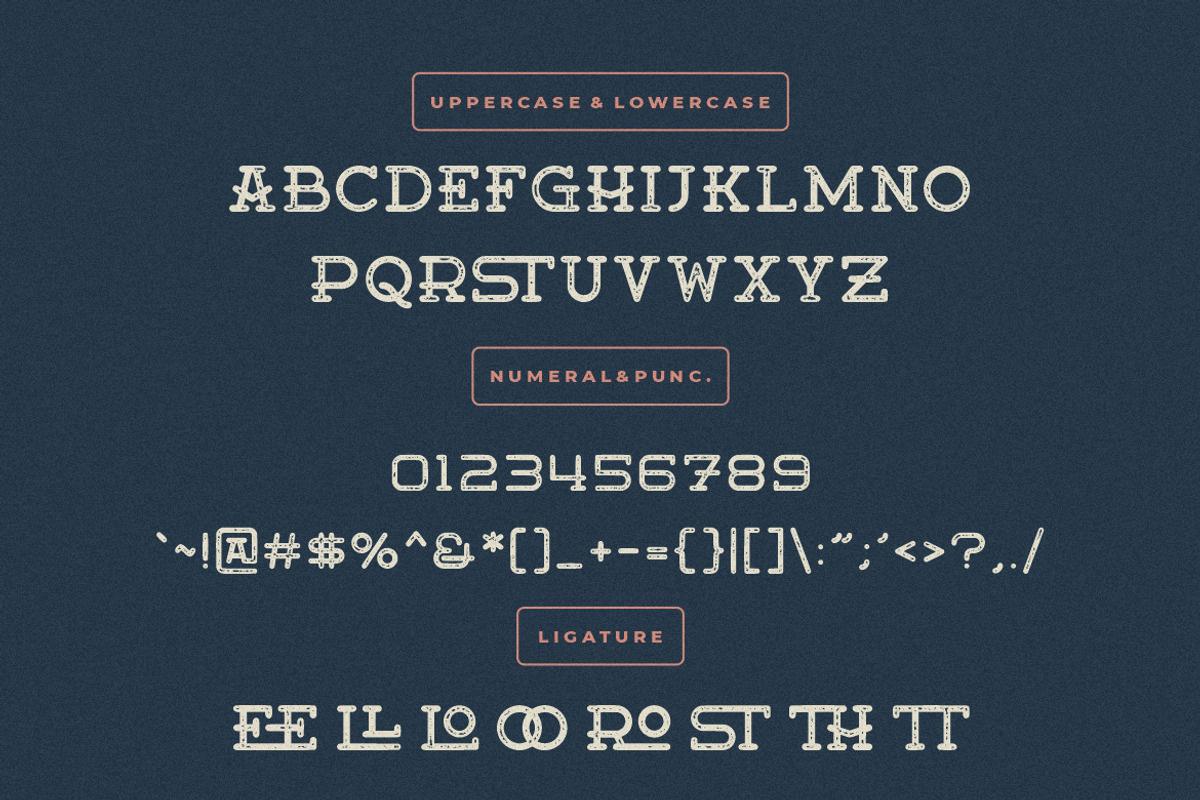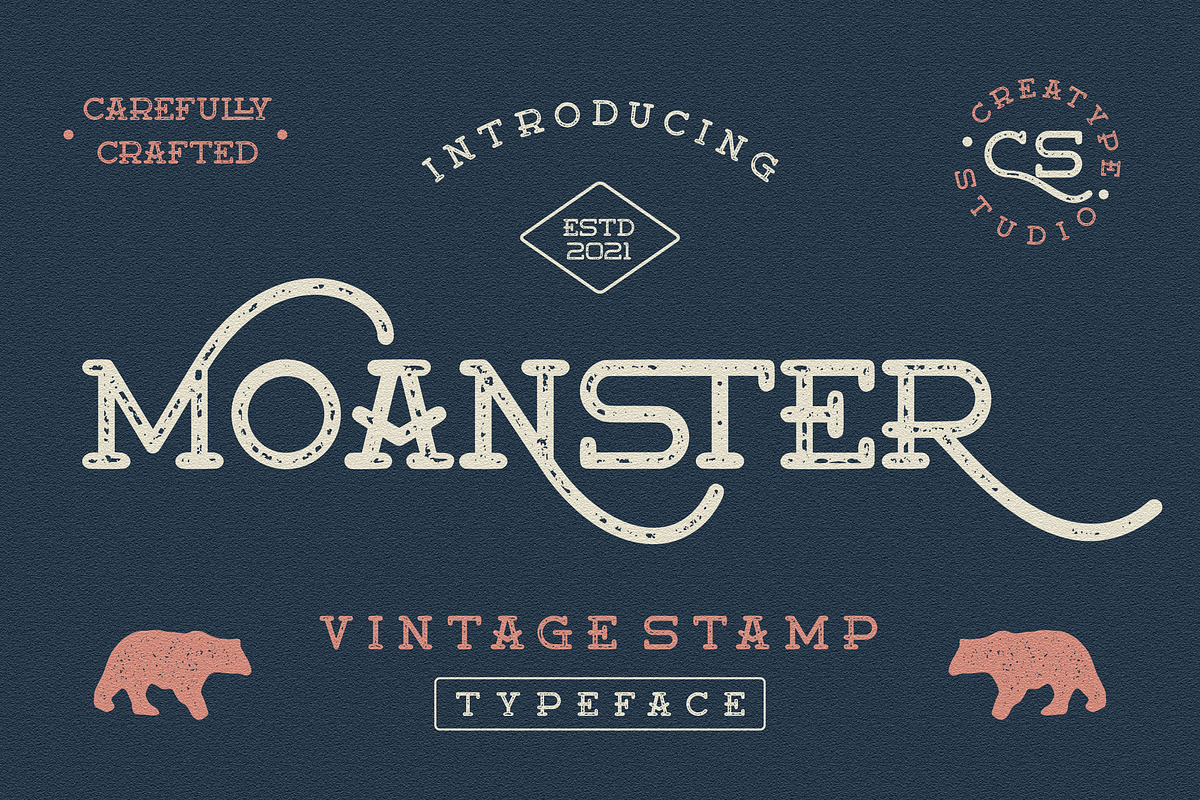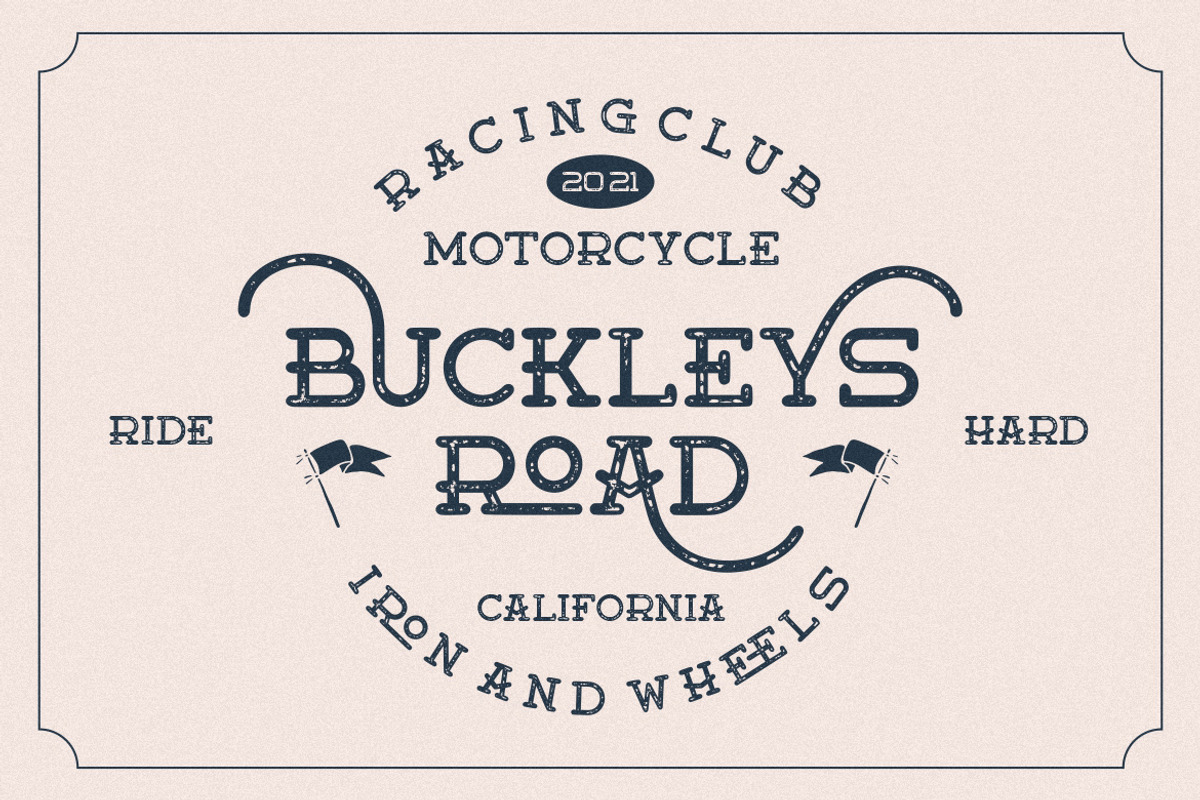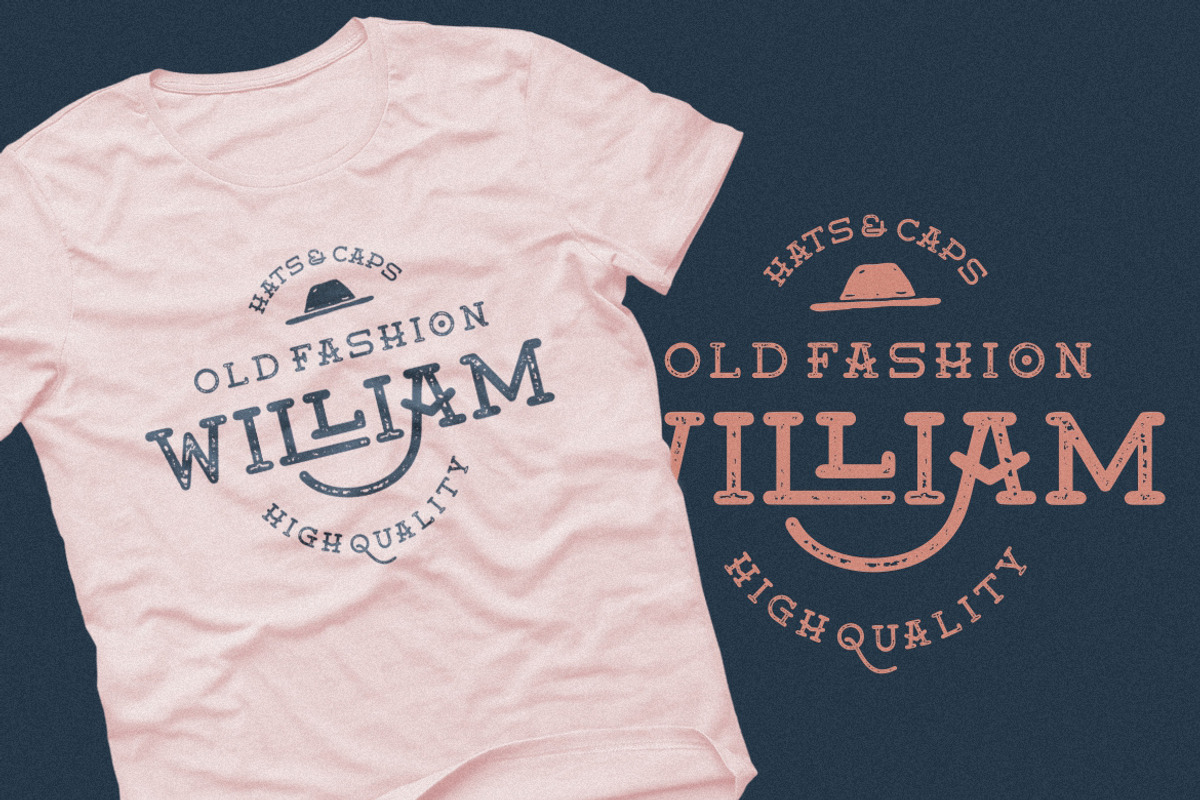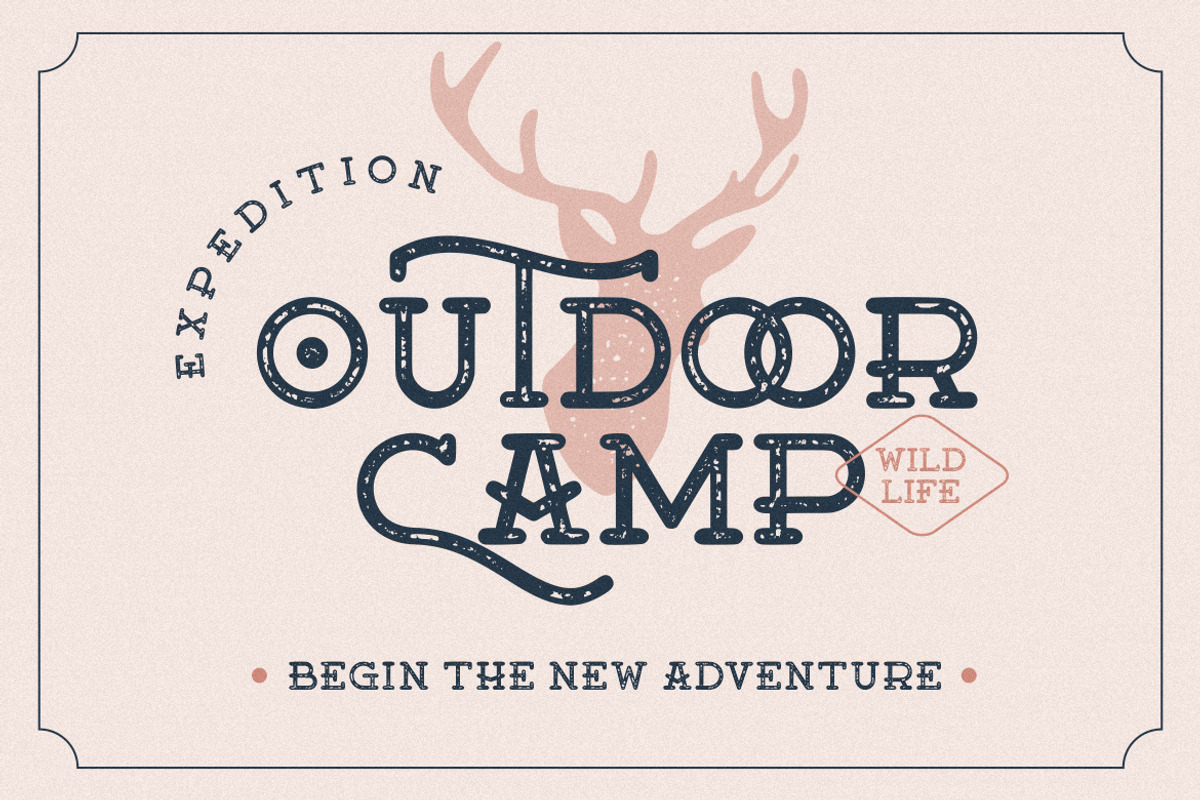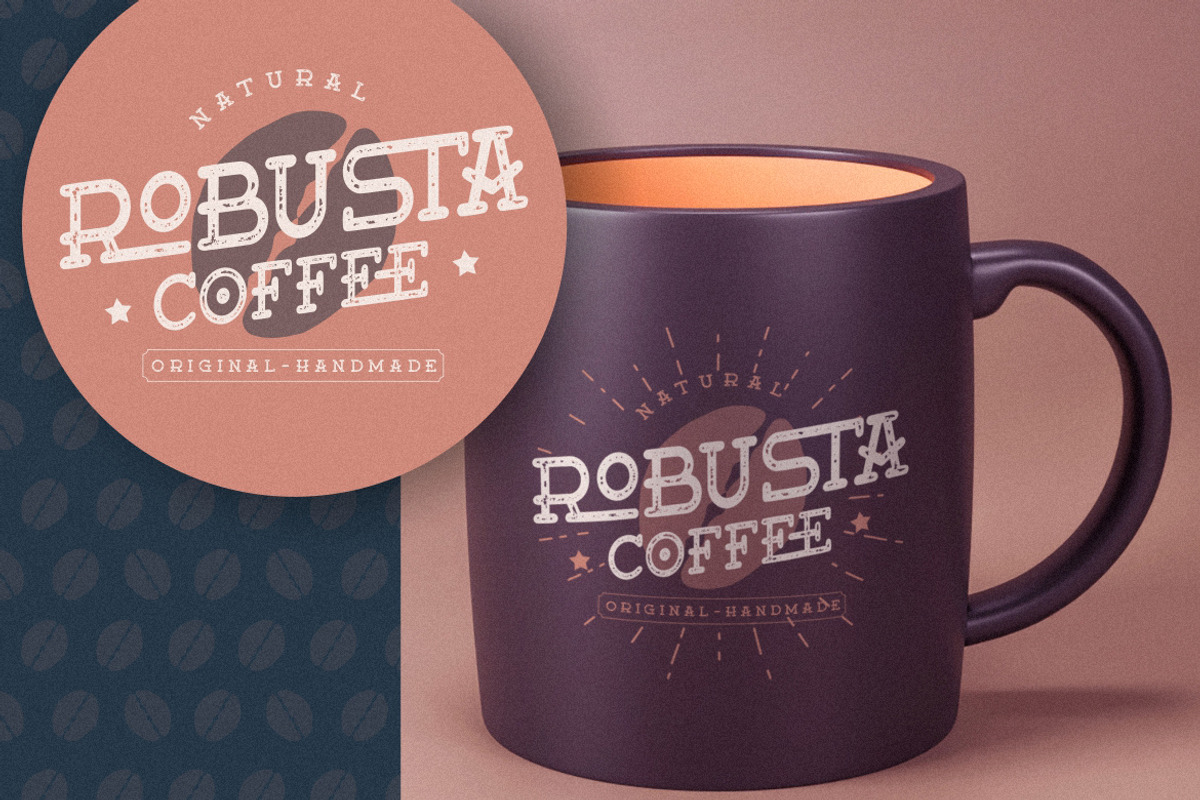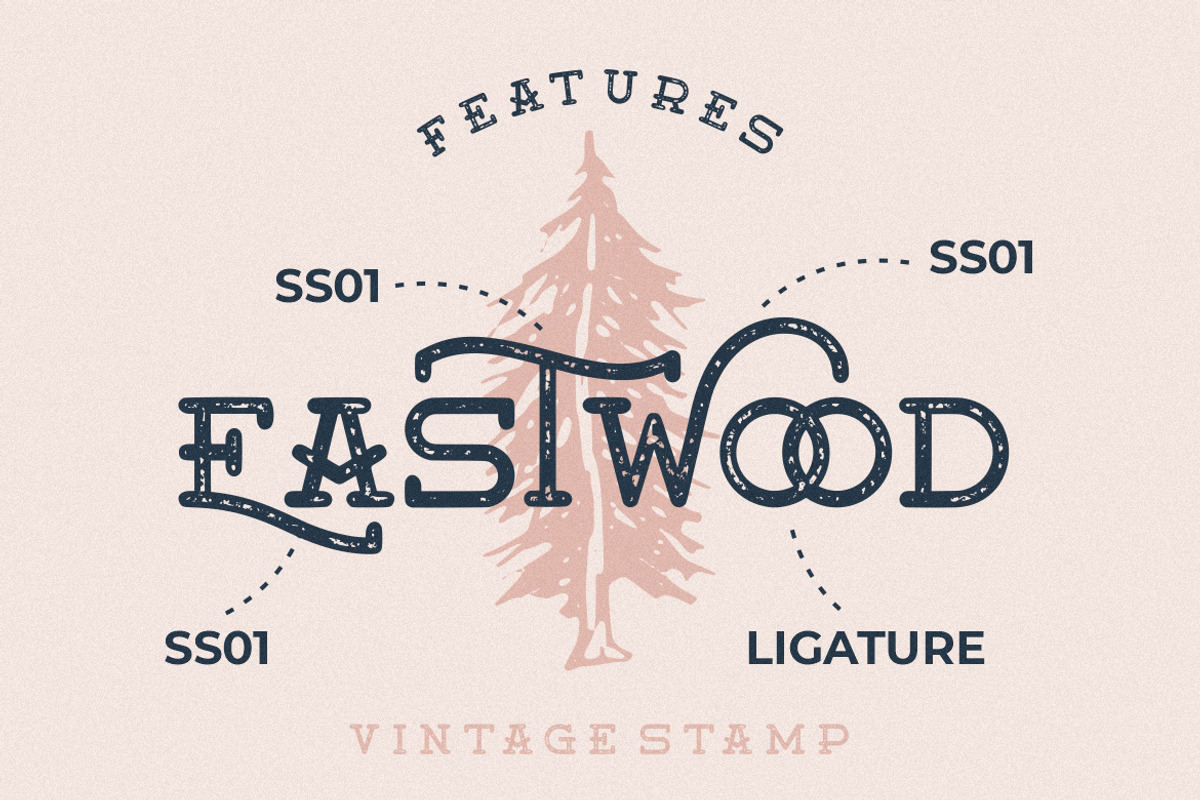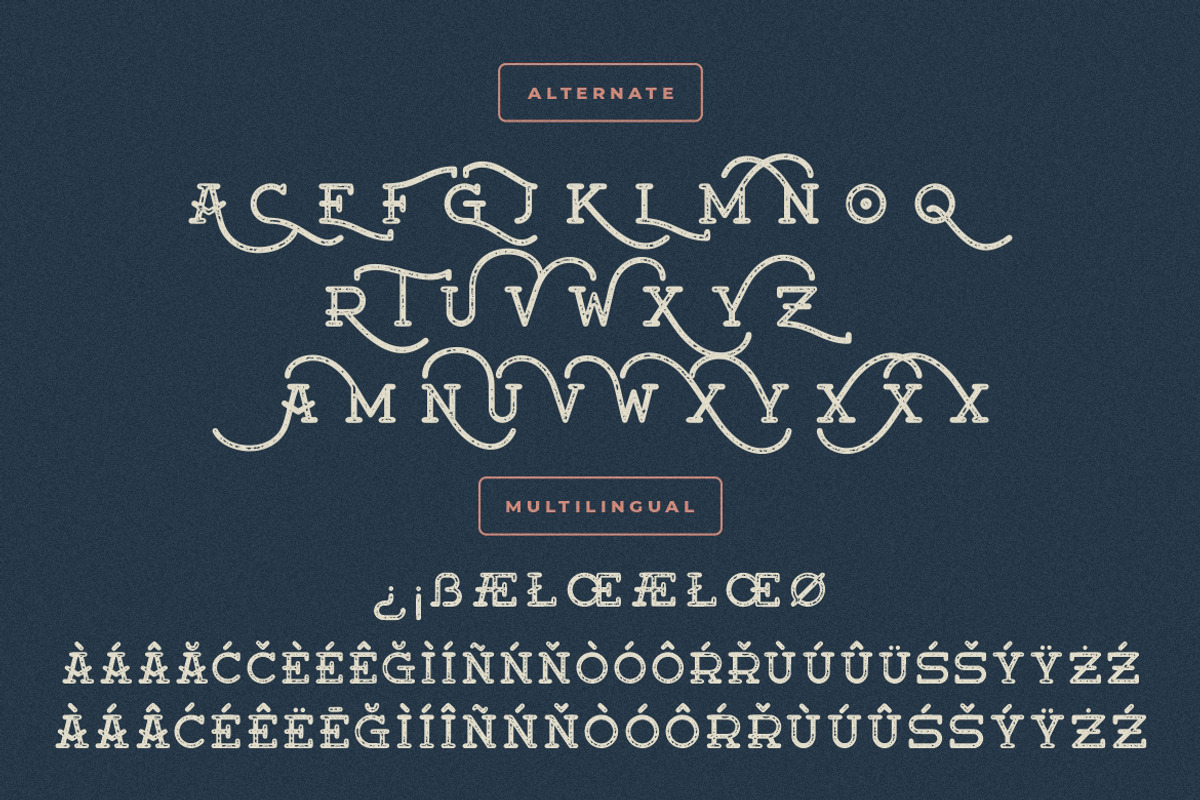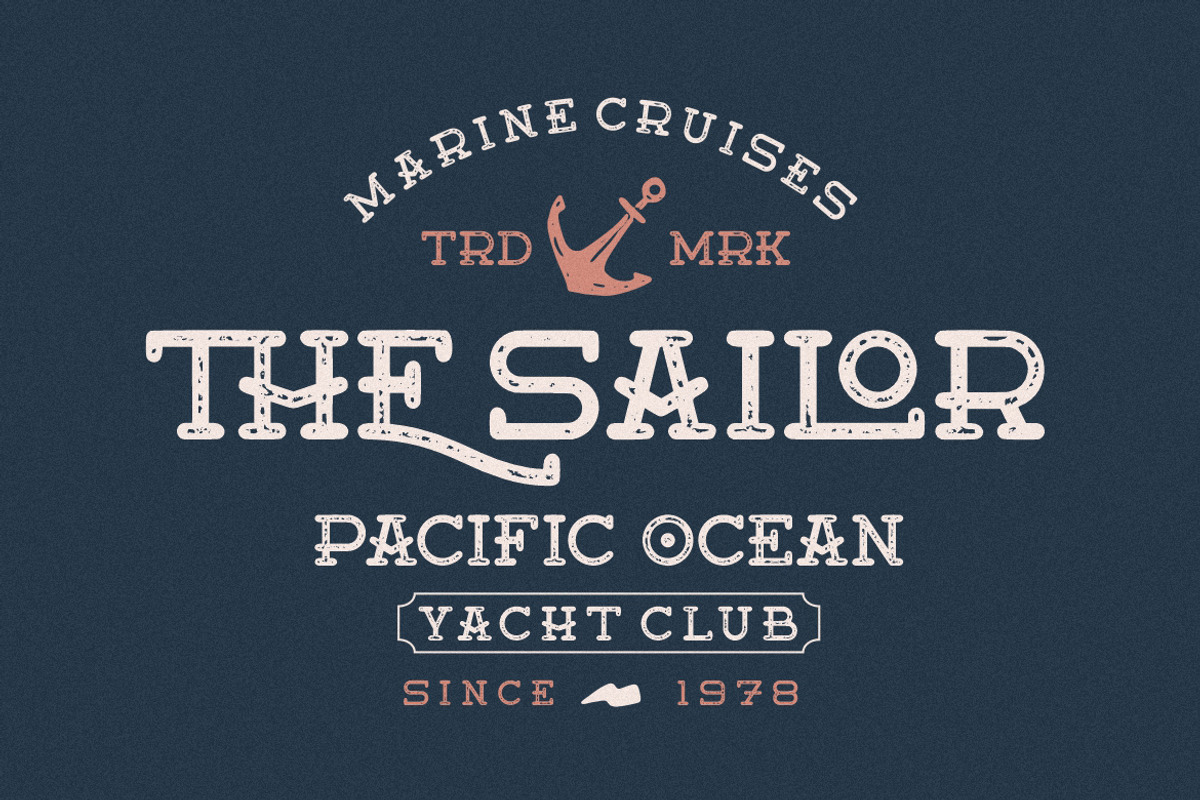
Moanster Vintage Stamp
Moanster is vintage font with stamp effect that old looks and retro style.
Moanster is perfect for branding projects, logo, wedding designs, social media posts, advertisements, product packaging, product designs, label, photography, watermark, invitation, stationery and any projects that need handwriting taste.
- Ligature & Alternate
- Fonts include multilingual support for; Afrikaans, Albanian, Czech, Danish, Dutch, English, Estonian, Finnish, French, German, Hungarian, Italian, Latvian, Lithuanian, Norwegian, Polish, Portugese, Slovak, Slovenian, Spanisch, Swedish.